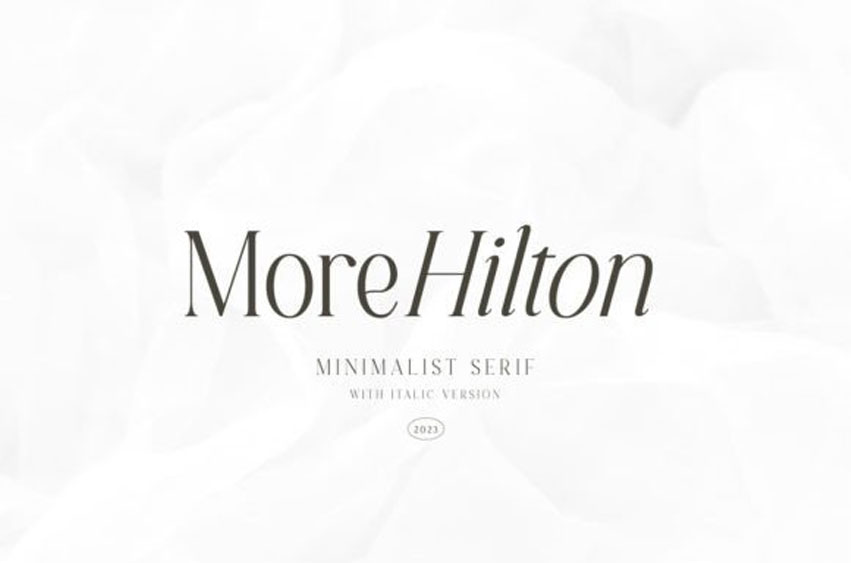
More Hilton Font
More Hilton Font is a minimalist serif font family. Comes with two styles, Regular & Italic. With simple and minimal looks, these fonts will be suitable for any purpose.
You can use this font for branding, quotes, logo, or you can also use this font to complimentary of your script font. More Hilton also supports multiple languages!